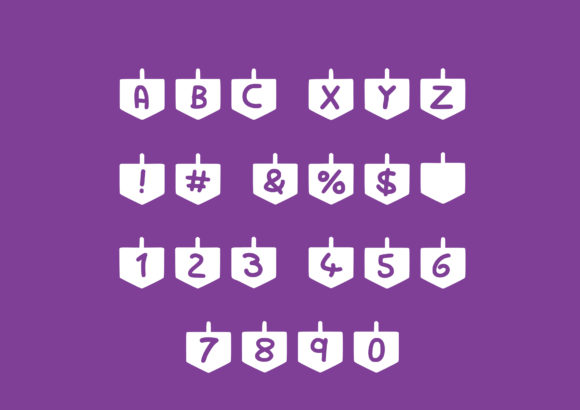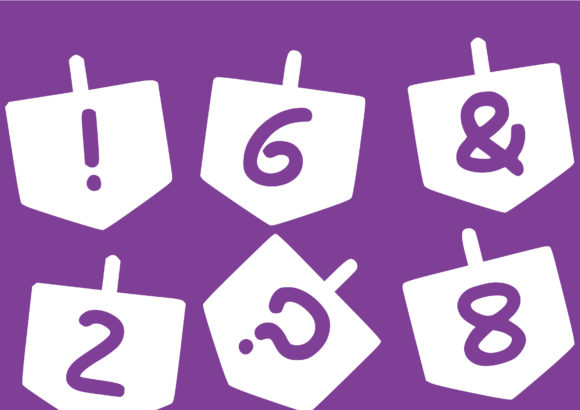
Introduction to Play Dreidel Font
Play Dreidel is a lovely decorative font, featuring a set of ornaments with a playful, child-like vibe.
It embodies trendiness and authenticity and is the perfect choice for any children activity or school project .
Key Features of Play Dreidel Font
Why Choose Play Dreidel Font?